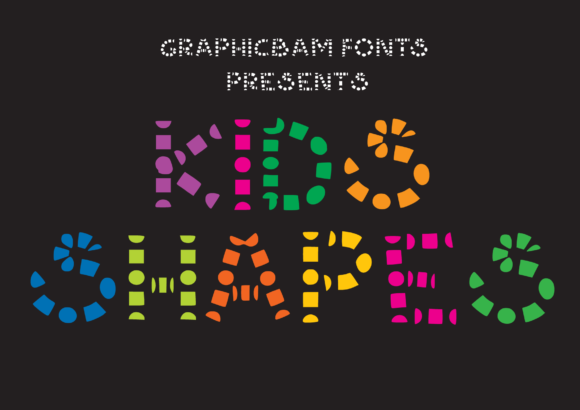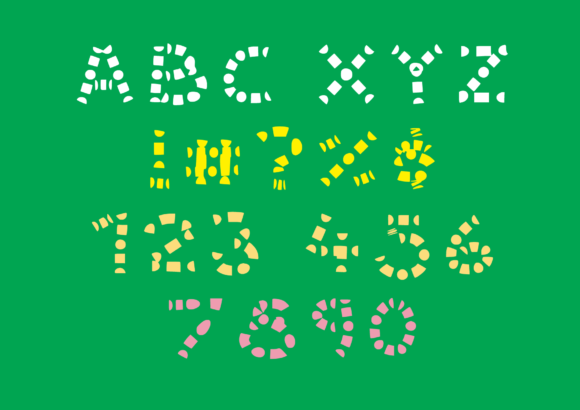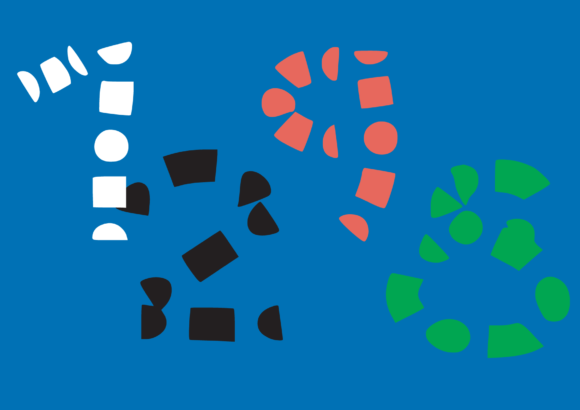
Unleash Your Creativity with Kids Shapes Font
Do you remember those magical moments when you were a kid, and your imagination knew no bounds? You’d create entire worlds out of cardboard boxes, crayons, and your wildest dreams. As designers, we never lose that spark, and that’s exactly why we love exploring new fonts like Kids Shapes.
Kids Shapes Font is a playful display font that brings a smile to your face. Its characters are cleverly crafted from geometrical shapes, making it a perfect addition to any design project. Whether you’re creating a children’s book, a birthday invitation, or a fun logo, this font will add a touch of whimsy and personality to your work.
With Kids Shapes Font, the possibilities are endless. It’s a valuable tool for designers looking to add a creative twist to their designs. So, get ready to unleash your imagination and have fun with this cool and fun display font!
Kids Shapes Font Key Features
- Unique Characteristics: Custom-designed shapes for kids’ learning, playful and colorful, easy to recognize and remember
- Characters and Symbols: Includes uppercase and lowercase letters, numbers, punctuation marks, and special symbols
Designer Review: Kids Shapes Font
Overall, I’d say that “Kids Shapes Font” is a sweet and playful addition to any design project that requires a child-friendly tone. ✨ The font’s unique shape-based design makes it perfect for creating engaging visuals for kids’ educational materials, websites, and even packaging.
- ✨ Highly customizable: You can adjust the color, size, and spacing to fit your project’s specific needs.
- ✨ Unique and recognizable: The shape-based design makes it easy for kids to recognize and remember the font.
- ✨ Works well for large-scale designs: Despite its playful nature, the font remains legible even at larger sizes.
- ⚠️ Limited flexibility for complex text: Due to its unique design, the font may not be the best choice for large blocks of text or complex layouts.
- ⚠️ Limited font pairing options: The font’s playful nature may make it challenging to pair with more serious or formal fonts.
In conclusion, while “Kids Shapes Font” may have some limitations, its unique design and high customization options make it a great choice for designers working on projects that require a child-friendly tone. With some careful consideration and planning, you can create engaging and effective designs that showcase this font’s best features.
The Kids Shapes Font is ideal for creating engaging and playful content for kids, such as:
- Children’s book covers and illustrations.
- Party invitations and decorations.
- Education and learning materials.
For optimal results, use the font in conjunction with colorful graphics and imagery to create a visually appealing and engaging design.